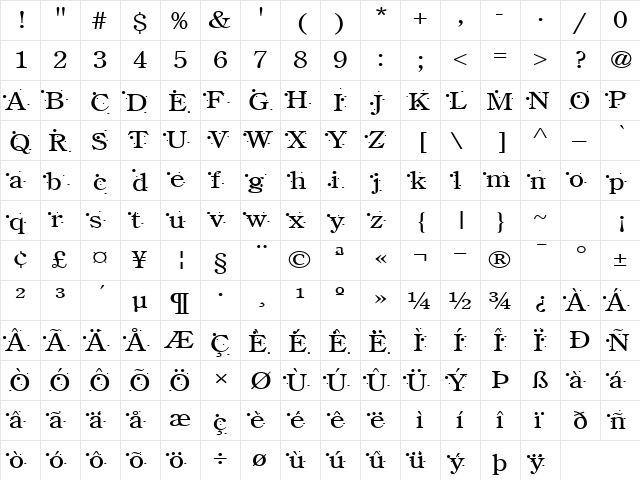
Mind Regular
Design Context for Mind Typeface
Mind takes a measured approach to typography — its balanced proportions and neutral character make it a reliable workhorse for both digital and print work.